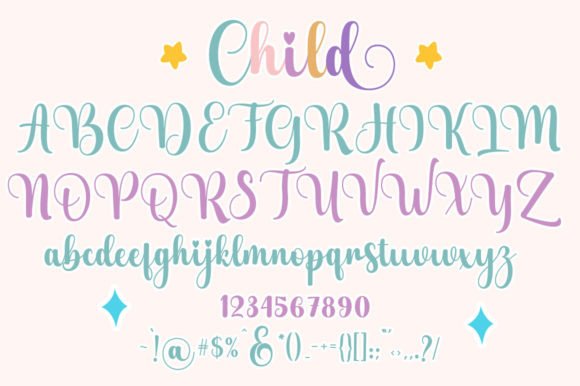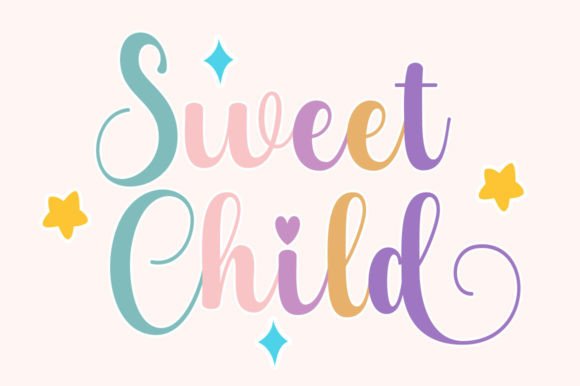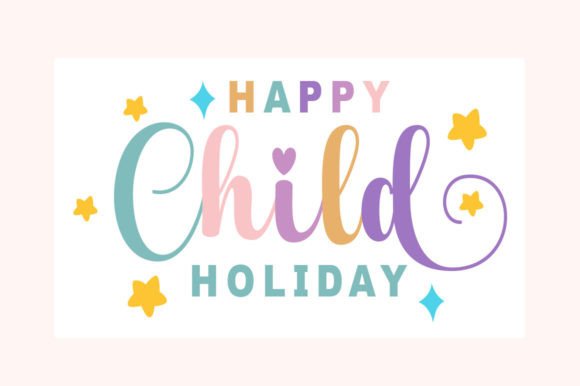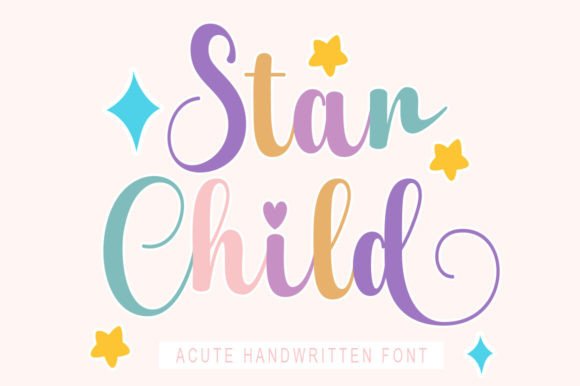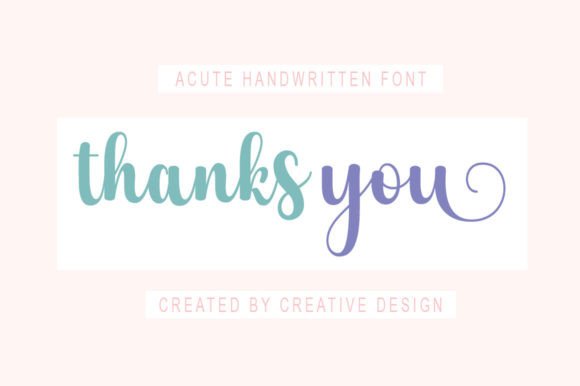
Introducing Child Font: The Sweet and Cute Handwritten Font for Your Creative Projects
Are you looking for a font that can add a touch of sweetness and cuteness to your designs? Look no further than Child Font, a beautiful handwritten font that is sure to capture your heart. With its incredibly versatile style, Child Font is perfect for creating a wide range of projects, from gorgeous wedding invitations and beautiful stationery art to eye-catching social media posts and more.
The Characteristics of Child Font
Child Font is a handwritten font that exudes a sense of innocence and playfulness. Its sweet and cute style makes it perfect for designs that require a personal touch. The font features:
- Unique and Quirky Style: Child Font has a distinctive and quirky style that sets it apart from other fonts. Its irregularities and imperfections give it a handmade feel that is sure to charm your audience.
- Versatile and Adaptable: Child Font is incredibly versatile and can be used for a wide range of projects, from formal to informal designs.
- Easy to Read: Despite its handwritten nature, Child Font is easy to read and understand, making it perfect for body text and headings.
Uses of Child Font
Child Font is a versatile font that can be used for a variety of projects, including:
- Wedding Invitations: Create beautiful and unique wedding invitations that will set the tone for your special day.
- Stationery Art: Use Child Font to create stunning stationery art, including greeting cards, thank-you cards, and more.
- Social Media Posts: Add a touch of personality to your social media posts with Child Font. It’s perfect for creating eye-catching graphics and quotes.
- Branding and Packaging: Use Child Font to create a unique and memorable brand identity for your business.
Why Designers and Crafters Love Child Font
Designers and crafters love Child Font for its unique and versatile style. Here are a few reasons why:
- High-Quality Design: Child Font is designed with high-quality and precision, ensuring that it looks great in any design.
Tips for Using Child Font
Here are a few tips for using Child Font in your designs:
- Pair it with Other Fonts: Child Font pairs well with other fonts, including serif and sans-serif fonts. Experiment with different combinations to find the perfect look for your design.
- Use it for Headings and Titles: Child Font is perfect for headings and titles. Use it to add a touch of personality to your design.
- Experiment with Colors and Textures: Child Font looks great in a variety of colors and textures. Experiment with different combinations to find the perfect look for your design.
| Font Name | Child Font |
| Author | Creative Design |